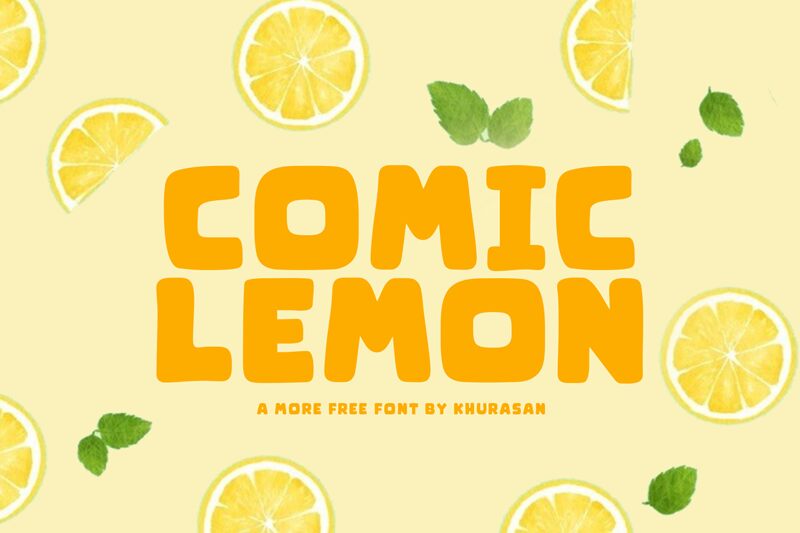
Comic Lemon
Looking for a fun, playful font that's perfect for your next creative project? Meet Comic Lemon! This extra-bold display typeface by Khurasan is sure to add a touch of whimsy to any design. With its semi-expanded width and cartoon-style lettering, Comic Lemon is ideal for everything from children's book covers to event posters. Whether you're working on a branding campaign or creating eye-catching social media graphics, this font will help your message stand out. So why not give Comic Lemon a try and inject some fun into your next project?